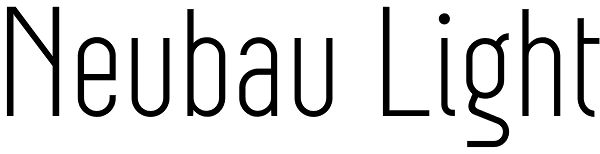
Neubau
Neubau is a condensed geometric display typeface, designed in 2009. The inspiration for this face came from Joost Schmidt lowercase letters developed during 1925-28 in Bauhaus Dessau. Schmidt was one of the proponents of New Typography – a movement...